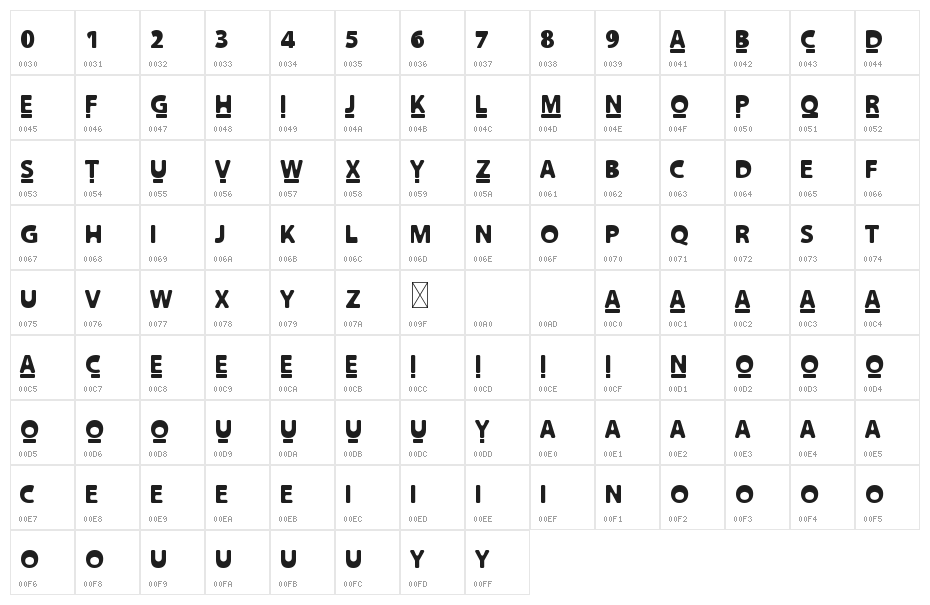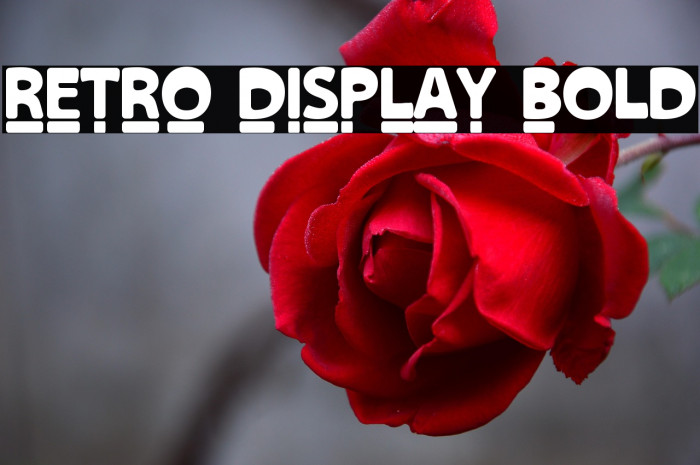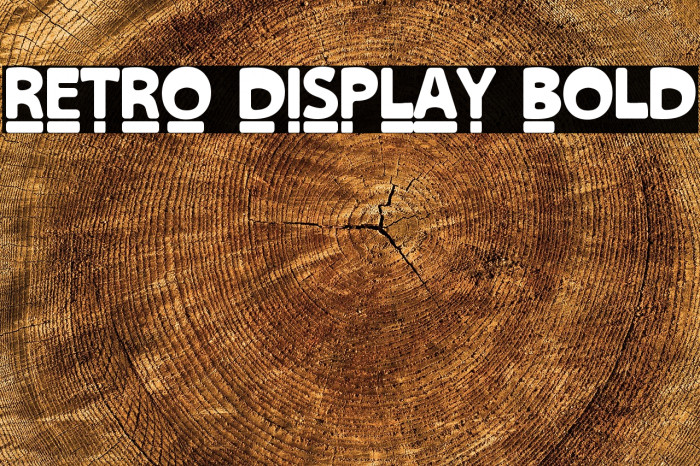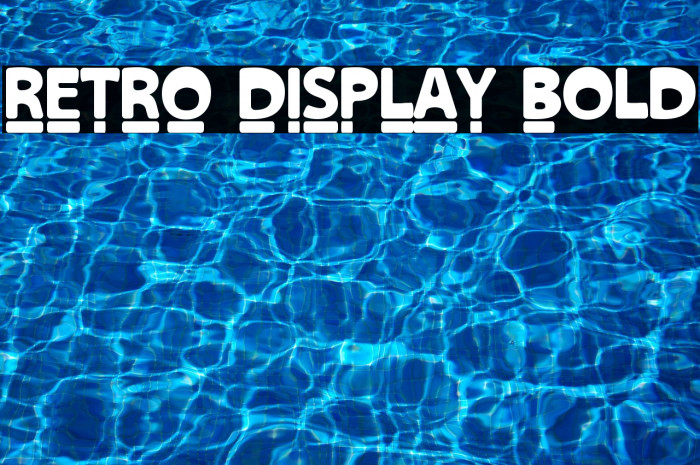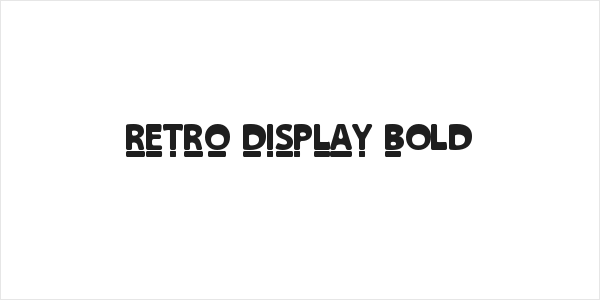
RETRO DISPLAY Bold Font
RETRO DISPLAY Bold Description
This bold, retro-inspired display font features a unique design with thick, rounded characters and a distinct underline effect that adds a playful touch. The uppercase letters are prominent and eye-catching, making it ideal for headlines and titles. The numbers and special characters maintain the same bold style, ensuring consistency across different uses. Its strong visual impact and nostalgic feel make it perfect for projects that aim to capture a vintage or retro aesthetic.
| Overall Style | Retro |
| Proposed Projects | Ideal for vintage-themed posters, retro branding, eye-catching headlines, and playful graphic design projects. |